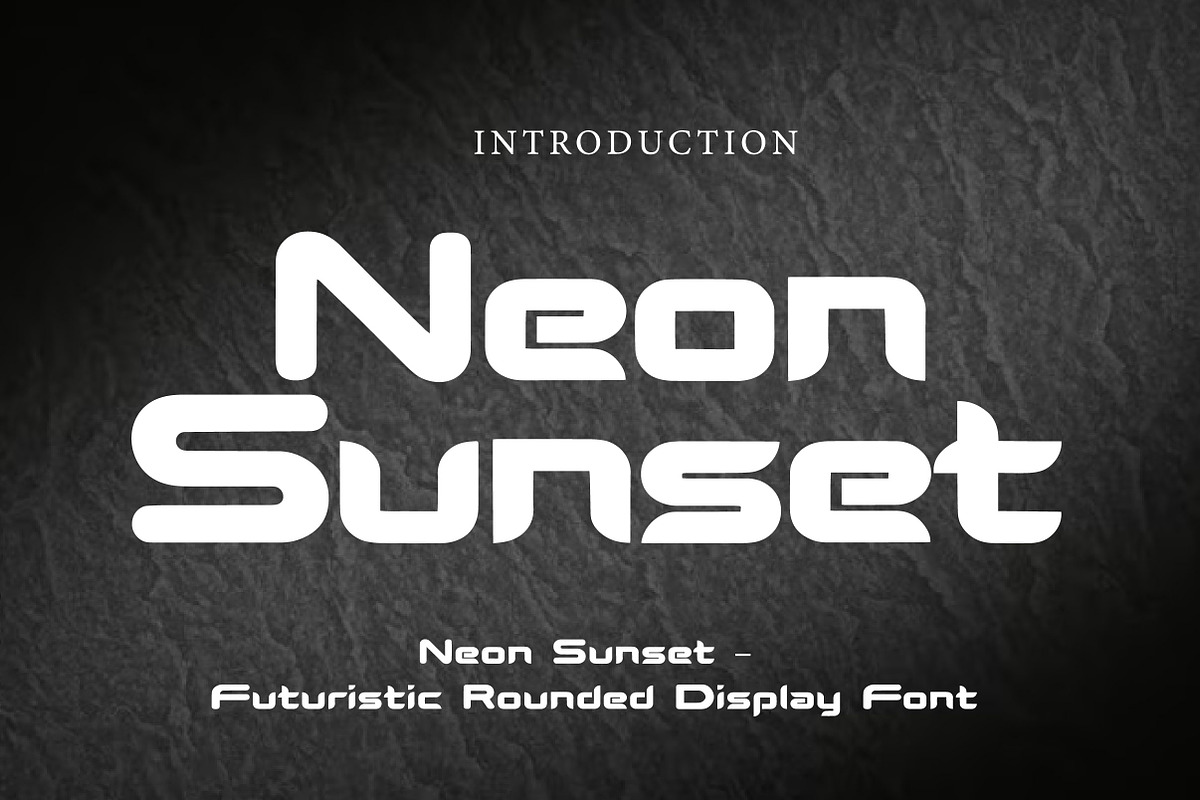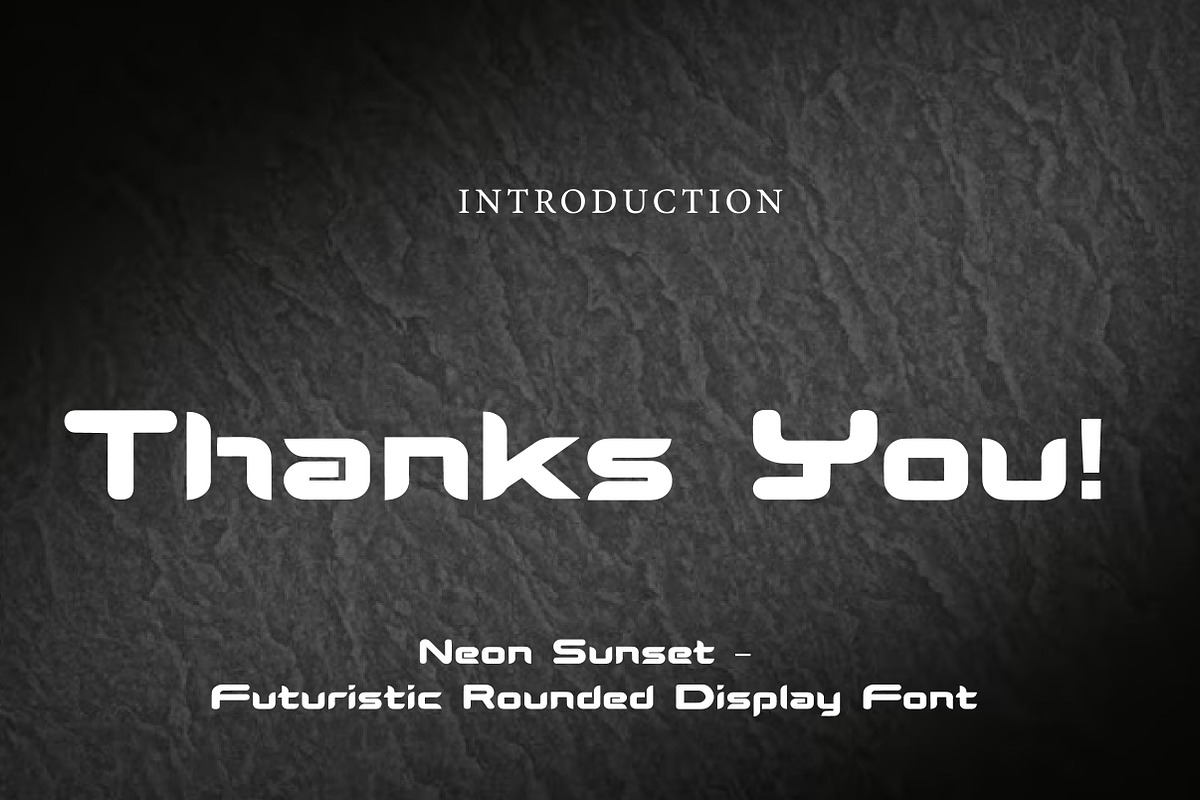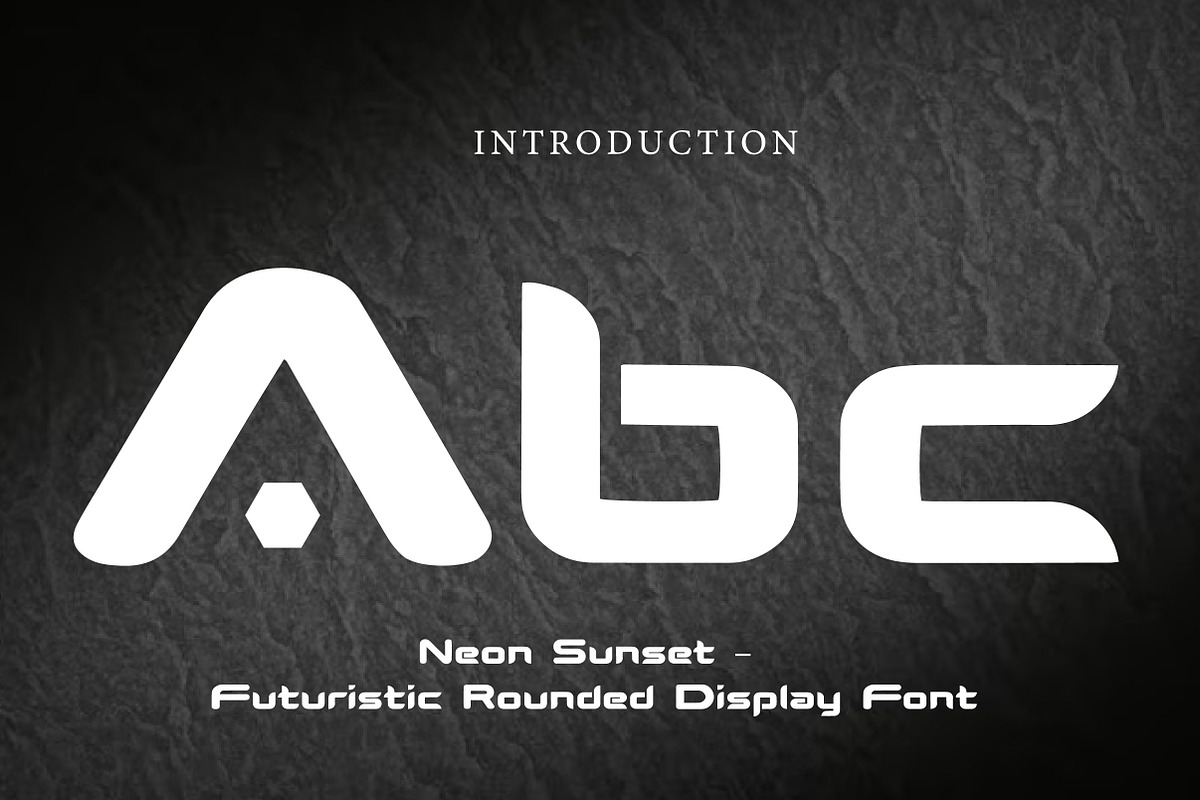
Neon Sunset – Futuristic Rounded Display Font
Neon Sunset is a sleek and futuristic rounded display font, perfect for tech branding, gaming designs, sci-fi posters, logos, and modern creative projects.
Neon Sunset is a bold futuristic display font designed to bring a modern, clean, and high-tech feel to your work. With its rounded corners, geometric structure, and smooth letterforms, this font creates a sleek and eye-catching visual style that stands out instantly.
Inspired by futuristic aesthetics and digital design trends, Neon Sunset is perfect for projects that need a modern and innovative look. Whether you're creating gaming graphics, tech branding, YouTube thumbnails, posters, product packaging, logos, or social media visuals, this font helps your text appear sharp, stylish, and memorable.
Its clean construction and unique rounded forms make it highly suitable for display use, especially in bold titles and standout branding. Neon Sunset is a great choice for designers who want a typeface that feels futuristic, energetic, and professionally crafted.